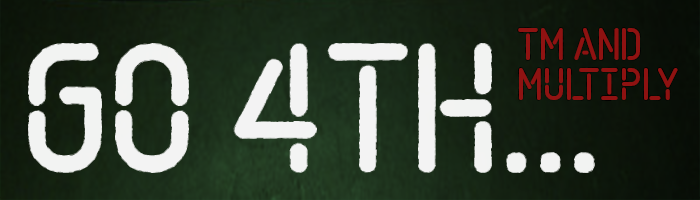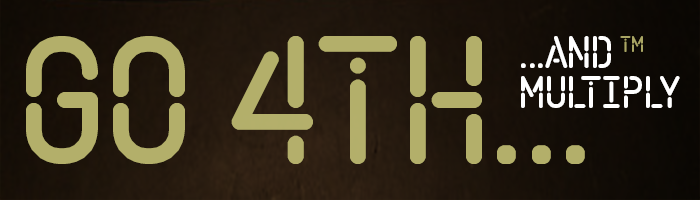
• I was thinking of something else and the thought "go forth and multiply" came to mind.
The word forth brought to mind 4th, with the 4 fully formed as seen here. So it had to be done. In the process, I've made the personal best smoothest fake circle yet on fontstruct, backed by a pixel-by-pixel matching of a real approximated circle in Ai.
Amazing work. 10/10+fav
Perfect work. The sample really is strong with rugged edges, it covers up the bezier curves. Maybe the G would look better with closed curve like on C or S, otherwise its style looks different.
Nice design. I made an almost perfect circle in Ptah. You'd have to check it out on Font Library, or download it there to see. :)
Well executed stencil variation!
Congratulations! FontStruct Staff have deemed your FontStruction worthy of special mention. “tm and Multiply” is now a Top Pick.
What an attractive stencil font, rewarded with a well earned TP!
wow! i cannot beleive that this is bezier, it looks so well rounded
I love this one. This is a very impressive and innovative Stencil - and it works very well as a neon sign. Bravo!
A nice (and bold!) stencil font! Cheers!